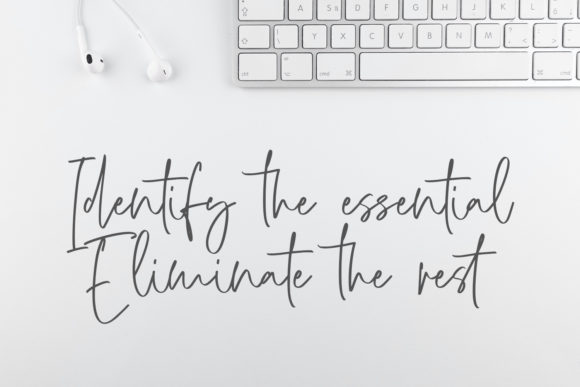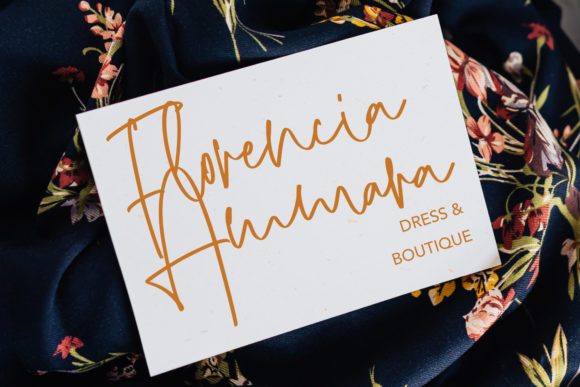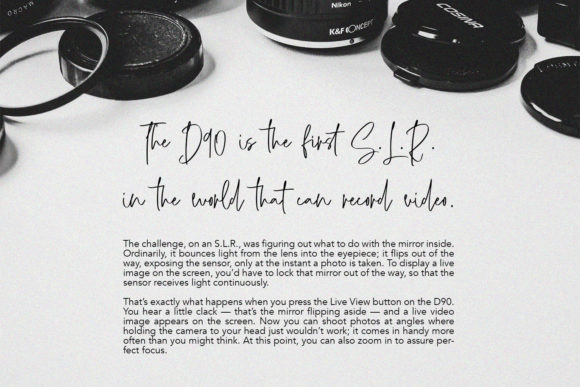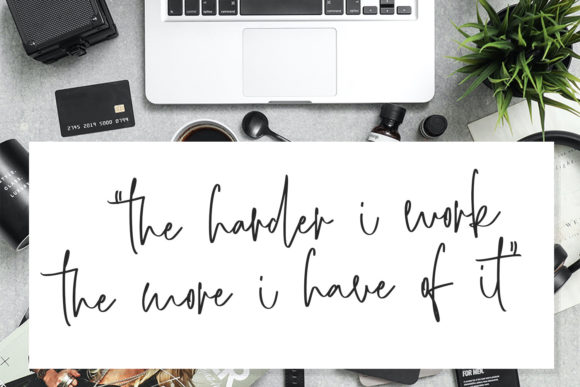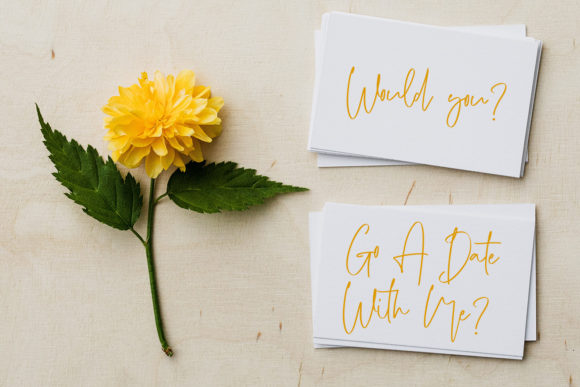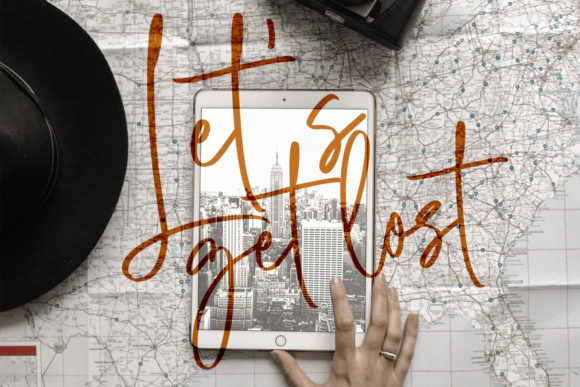
Introduction to Lillyanstar Font Font
Fonts play a crucial role in design, and the Lillyanstar Font font is a typeface that brings both character and versatility to any project. Whether you’re working on a branding project, a website, or a print design, the Lillyanstar Font font offers a unique style that can elevate your work.
Lillyanstar is a beautiful and refined script font.
It has a classy, elegant and modern look that can be used for logos, branding, invitations, stationery, wedding designs, social media posts, and much more .
Key Features of Lillyanstar Font Font
Why Choose Lillyanstar Font Font?
The Lillyanstar Font font is more than just a typeface – it’s a design tool that helps you communicate your message with style and clarity. Its unique character set and versatile design make it suitable for a wide range of applications, from elegant invitations to bold headlines.
With its carefully crafted letterforms and balanced proportions, the Lillyanstar Font font ensures readability and visual appeal across all mediums.
What makes Lillyanstar Font font special?
The Lillyanstar Font font stands out with its unique design, exceptional readability, and versatility across various design applications.